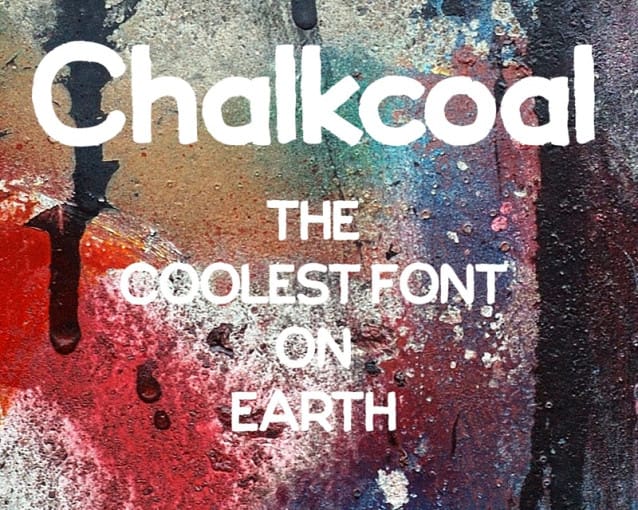
Chalkcoal Display Font
Chalkcoal Display Font, Suitable for any design needs : logo, branding, modern advertising design, logos, poster quote, book / cover Title, editorial design, website / blog, card, t-shirts, and any hand-lettered needs.